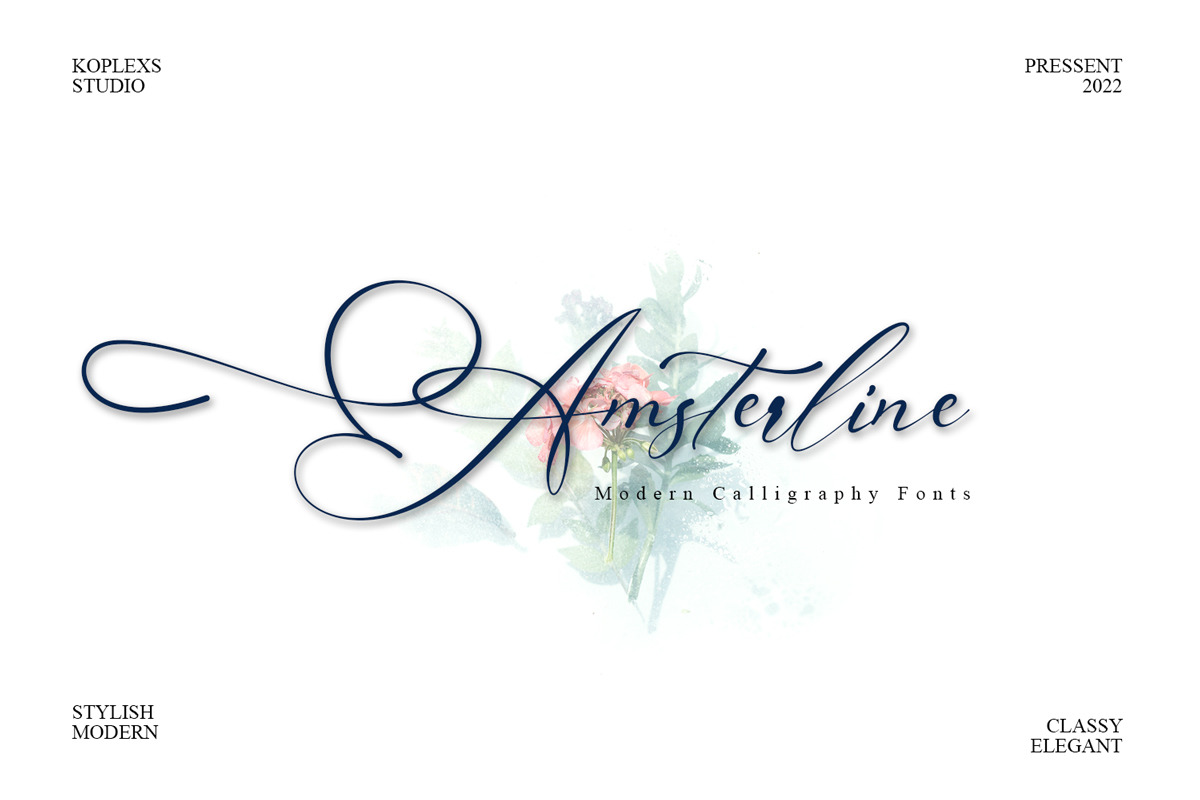
Amsterline - Modern Calligraphy Font
Amsterline is a script font with a unique new style in every curve so it gives off a beautiful and soft feel.
Amsterline Very suitable for use in making greeting card designs, Instagram posts, logo designs, wedding designs, social media posts, advertisements, product packaging, product designs, labels, photography, watermarks, invitations, stationery,wedding texts, romance quotes and so on, the first is about love.